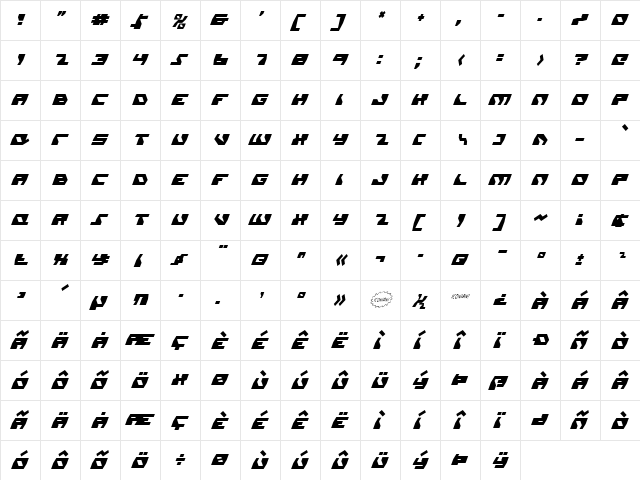
Daedalus Condensed Italic Font Preview
Design Context for Daedalus Condensed Typeface
Daedalus Condensed is a composed and adaptable typeface that performs quietly and consistently across a wide range of design contexts. The dynamic lean of this cut emphasises speed and emphasis in any layout. Its narrow stance lets it pack a punch even in space-constrained designs.
Pro Tip: Try Daedalus Condensed for annotation and caption copy alongside an upright companion — the contrast in angle creates a dynamic but ordered typographic system.